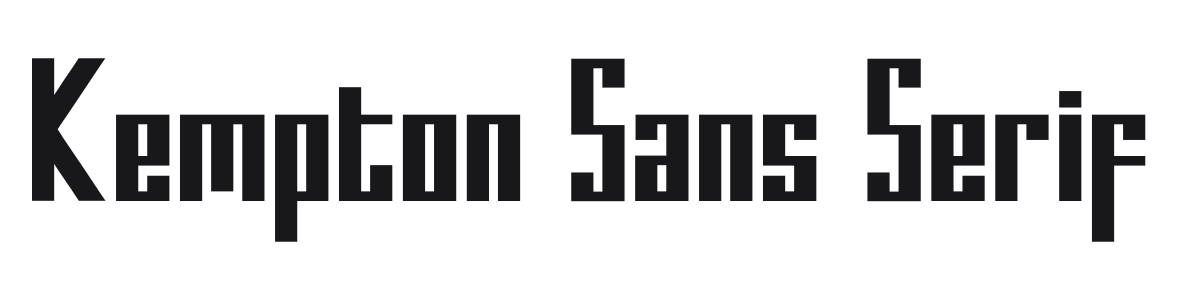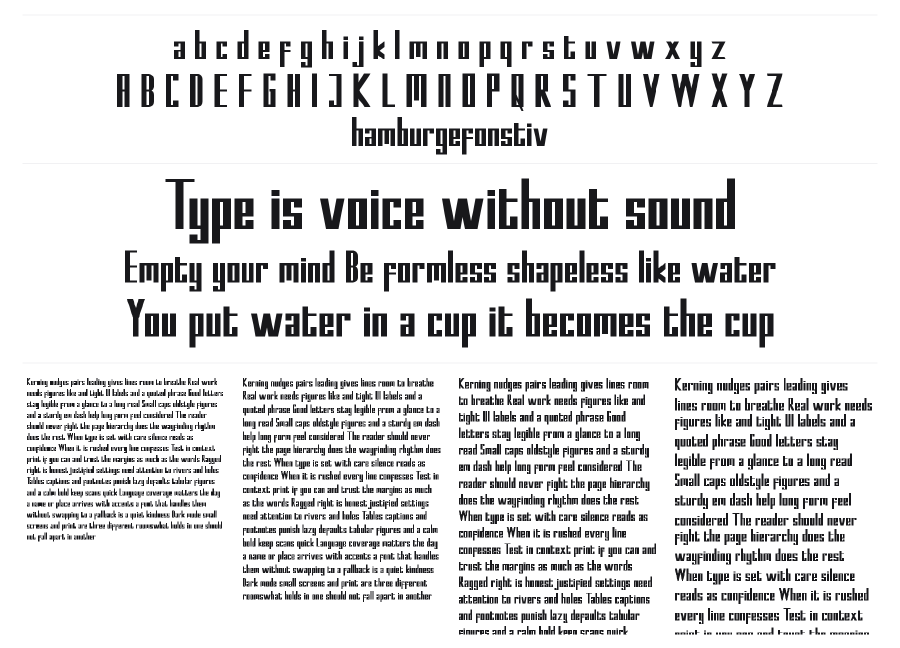
Kempton Sans Serif
Kempton Sans Serif is a heavy, ultra-condensed display face built from squared, modular strokes with a strong constructivist influence. The compressed proportions and flat-cut terminals give it a mechanical, almost architectural presence at large sizes. It carries the energy of 1970s sports graphics and industrial print without feeling like a pastiche.